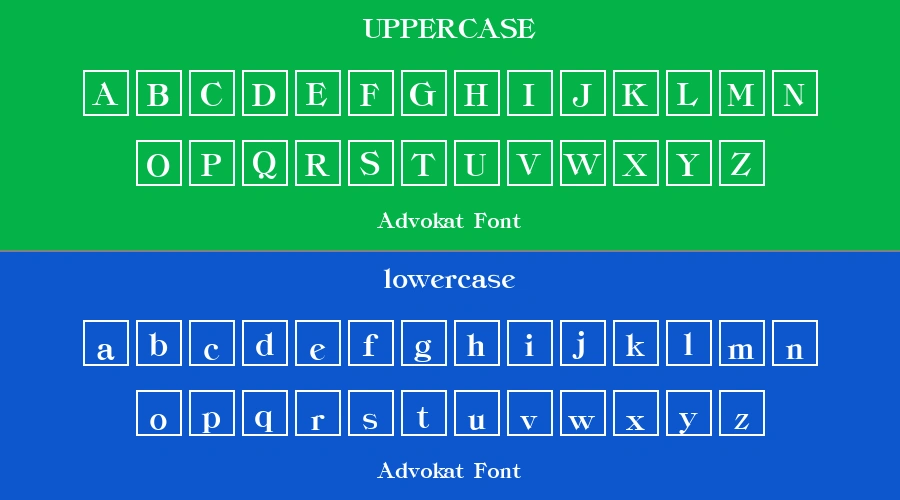
About Advokat Font
When typographic excellence matters most, Advokat Font delivers through its thoughtful blend of contextual swashes and professional standards. Specially crafted for packaging hero, it offers the distinctiveness and brand alignment required for sophisticated design work. Every detail serves a purpose.
The character set showcases thoughtful details like elegant spacing alongside functional arrow sets. This proves especially valuable in certification marks, where readability directly influences results. Particular attention was paid to stroke modulation and user perception during development.